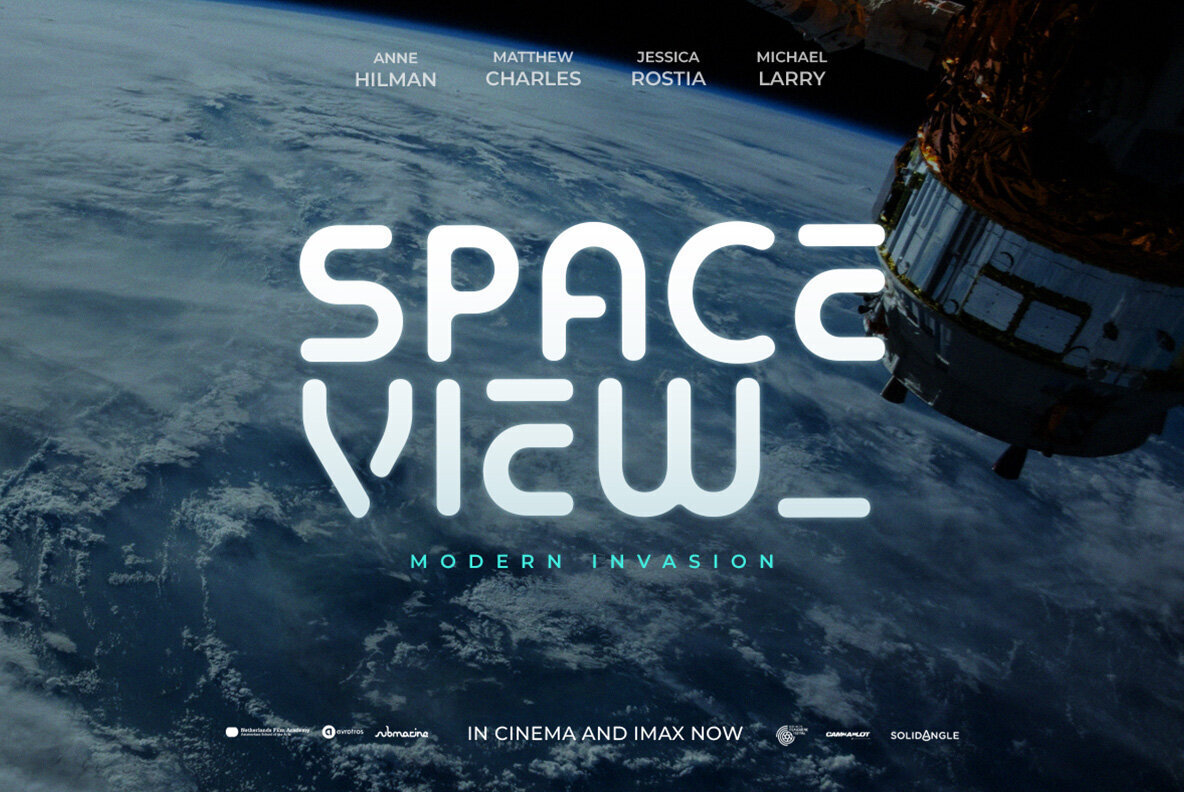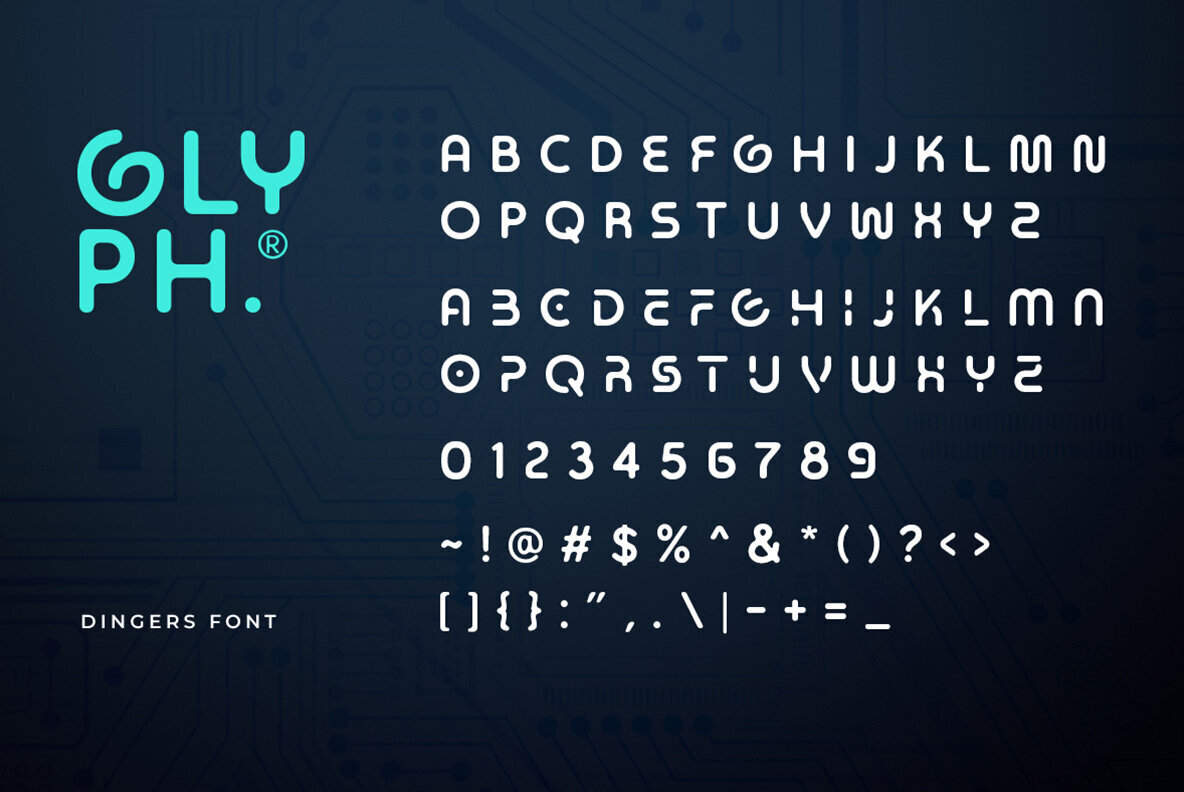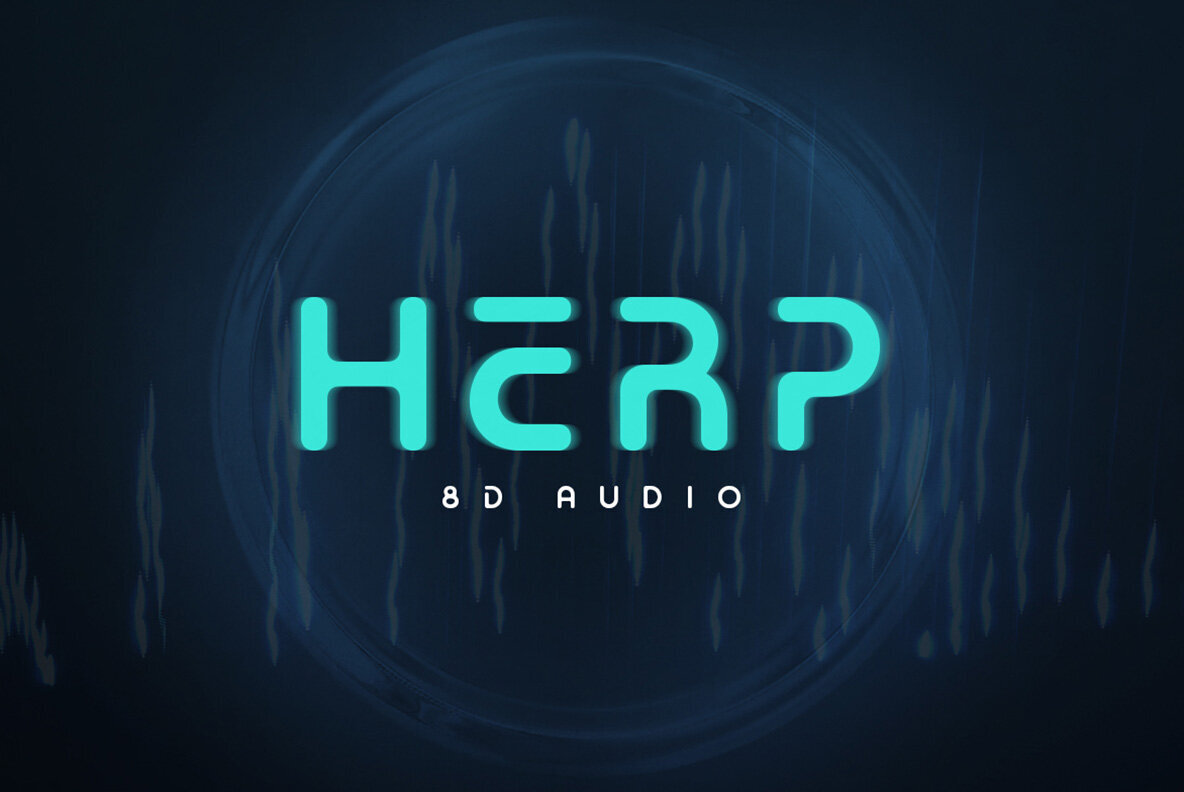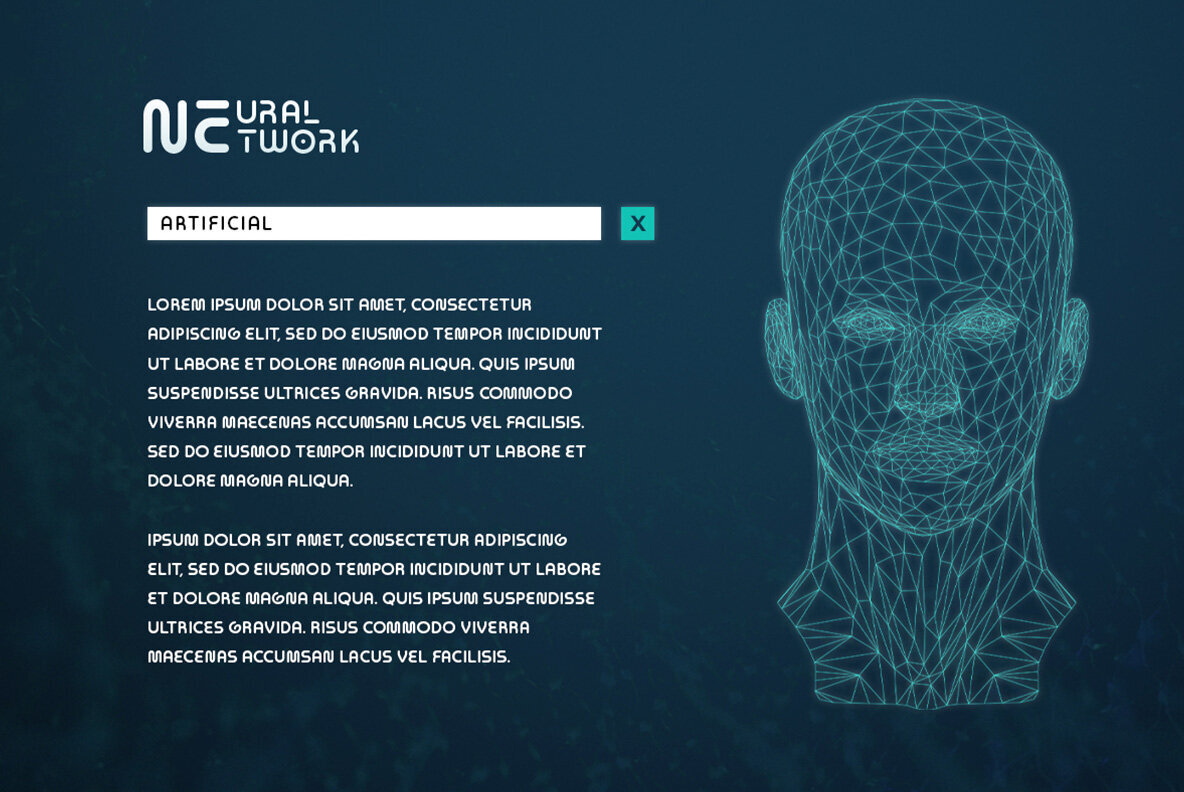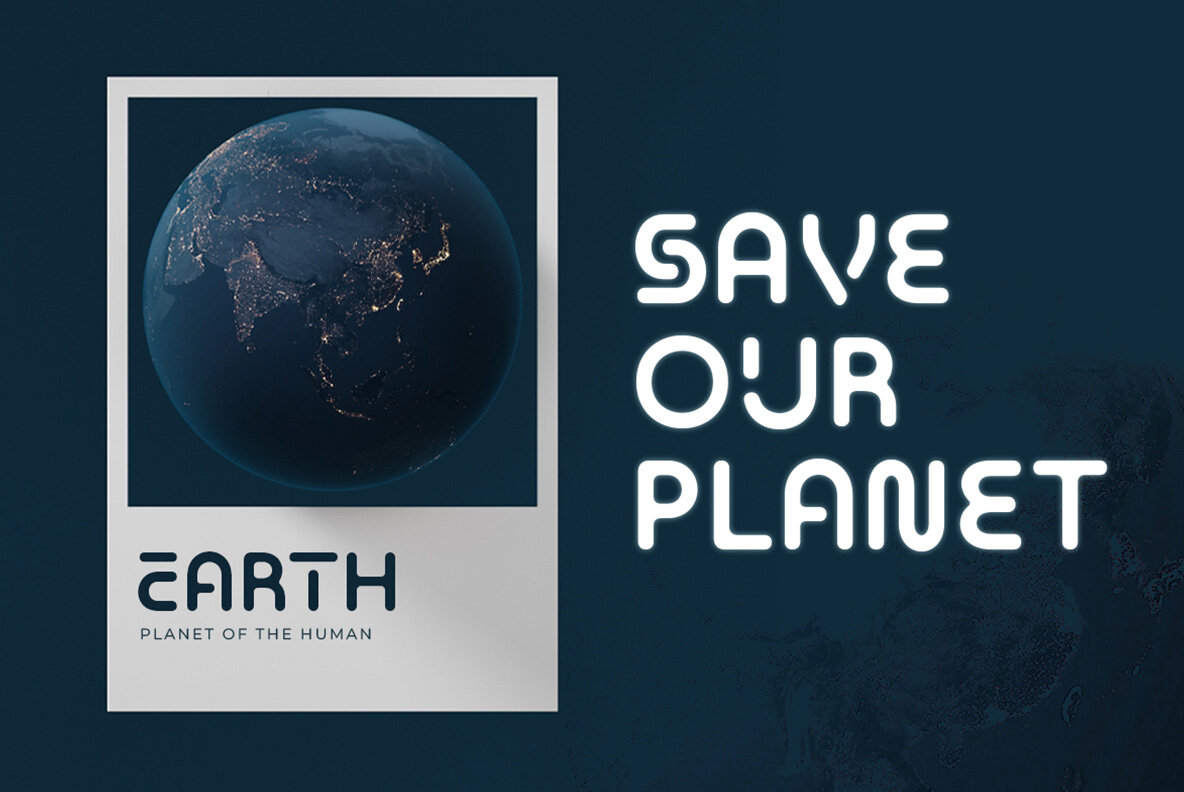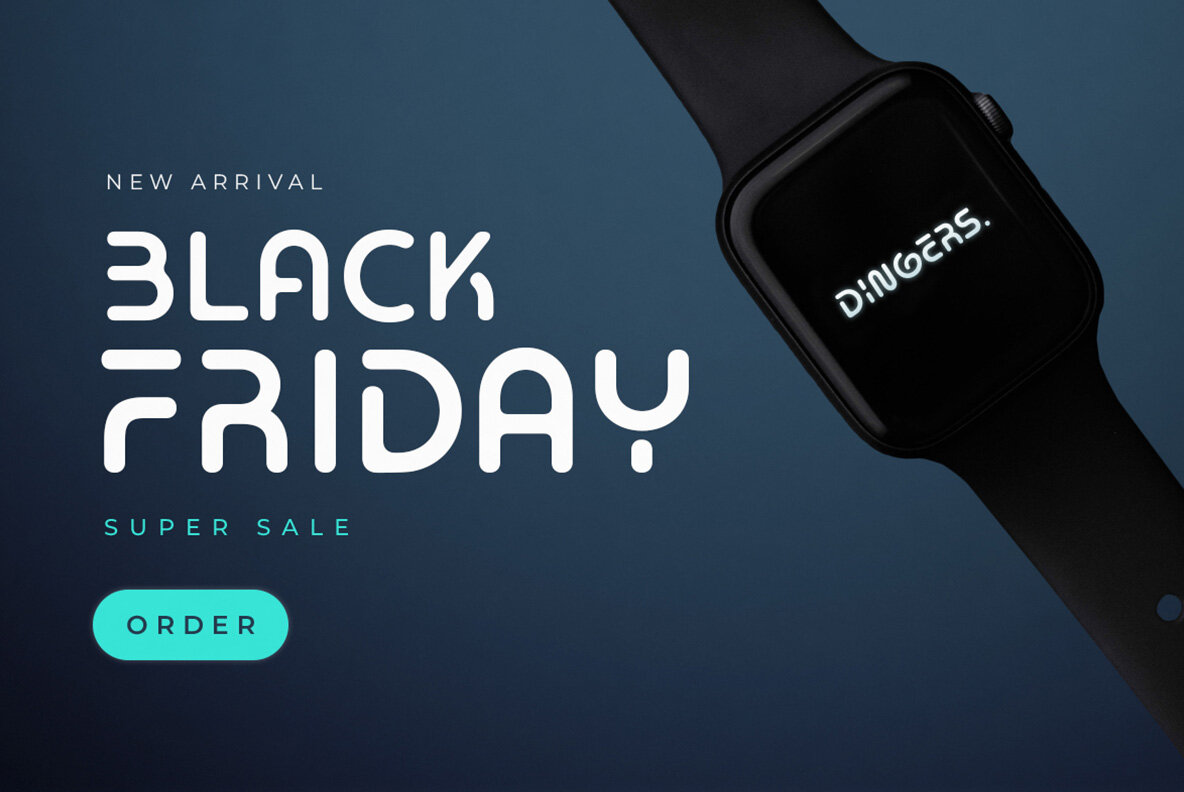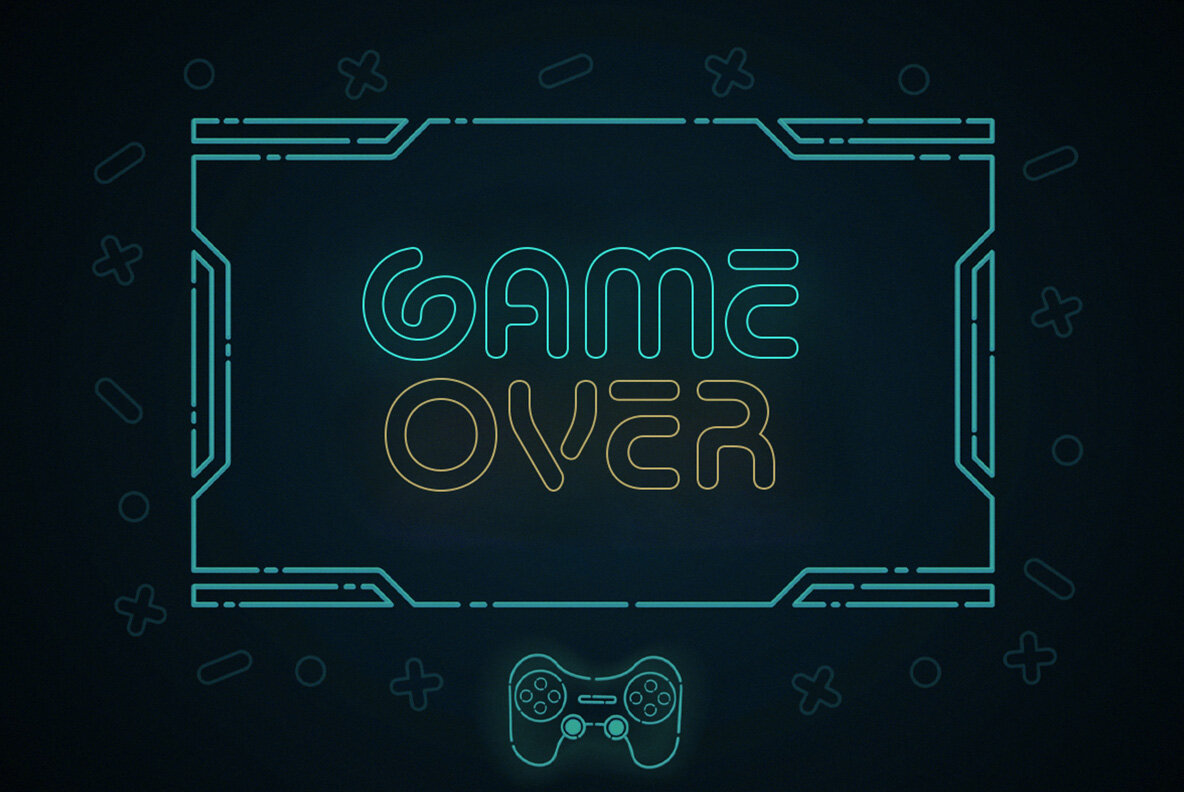
Dingers Font
Dingers Regular
Dingers is a sans-serif based typeface with fancy rounded shape that will make your design looks hi-tech and trendy. This font can be used for a variety of purposes, including logotype, sci-fi movie posters, and for branding. To make your logo stand out, mix and match uppercase and lowercase letters. This typeface is also multilingual.